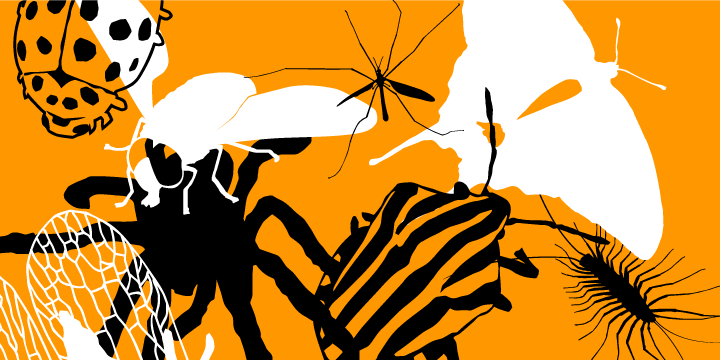
Insects is a collection of insects, arachnids and other little creatures.
You can find spiders, scorpions, flies, ants, bugs, butterflies, mosquitos and other little beings all designed with accuracy.